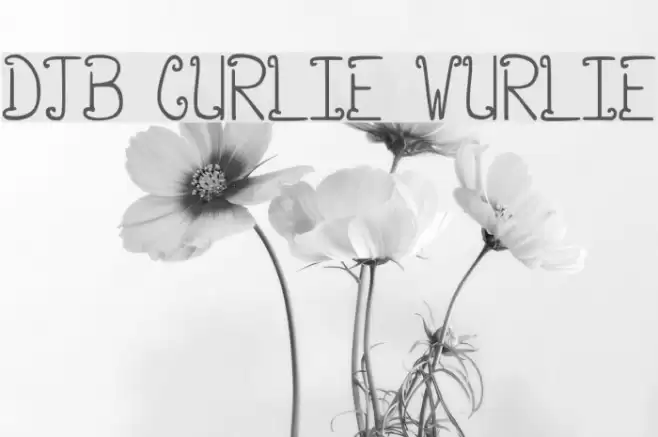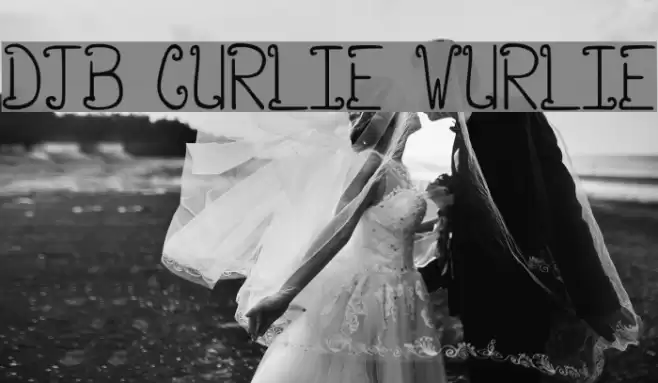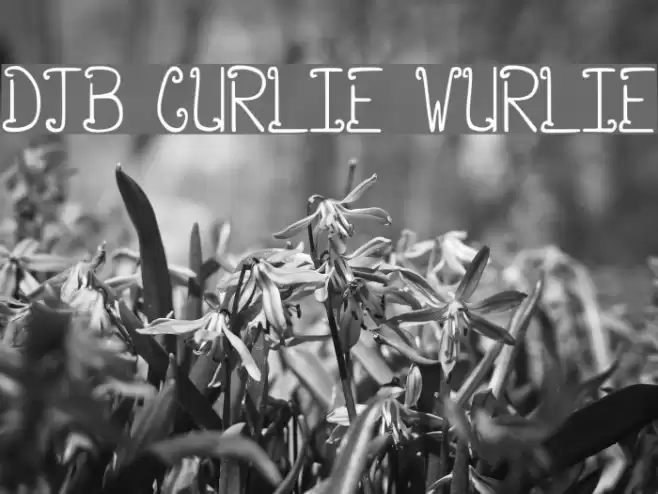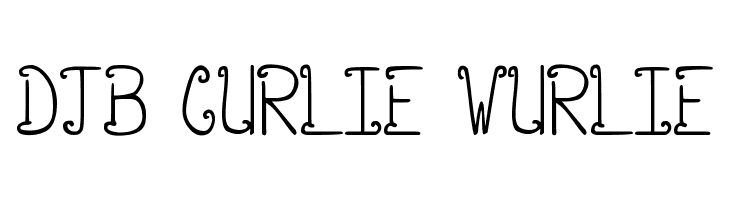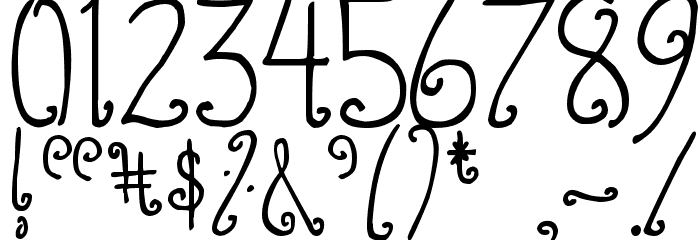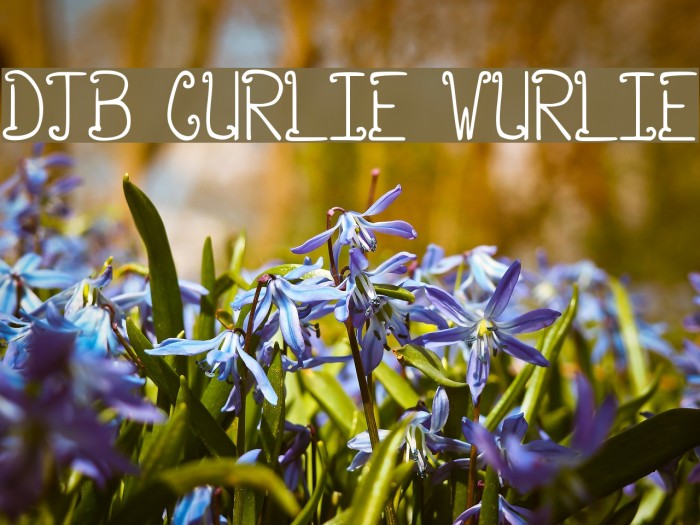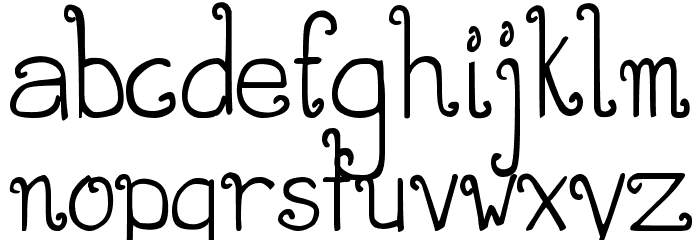
DJB CURLIE WURLIE Font
DJB CURLIE WURLIE Description
This playful and whimsical font features a unique blend of curls and swirls, giving it a distinctive and lively appearance. Each character is adorned with decorative loops and embellishments, creating a sense of movement and fun. The uppercase letters are tall and slender, while the lowercase letters maintain a consistent style with their uppercase counterparts, adding a touch of elegance. Numbers and special characters are equally stylized, ensuring a cohesive look throughout. This font is perfect for projects that require a touch of creativity and flair.
A whimsical and decorative font with playful curls and swirls from Curly fonts.
- Proposed Projects: Ideal for children's book covers, playful invitations, greeting cards, and creative branding.
- Use Case: Headlines, Logos, Creative projects